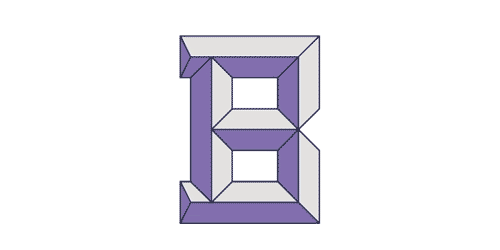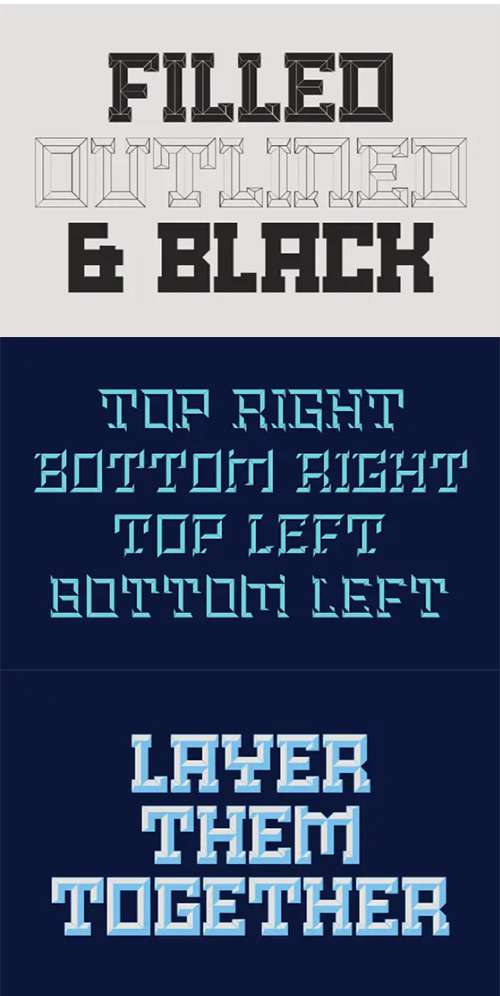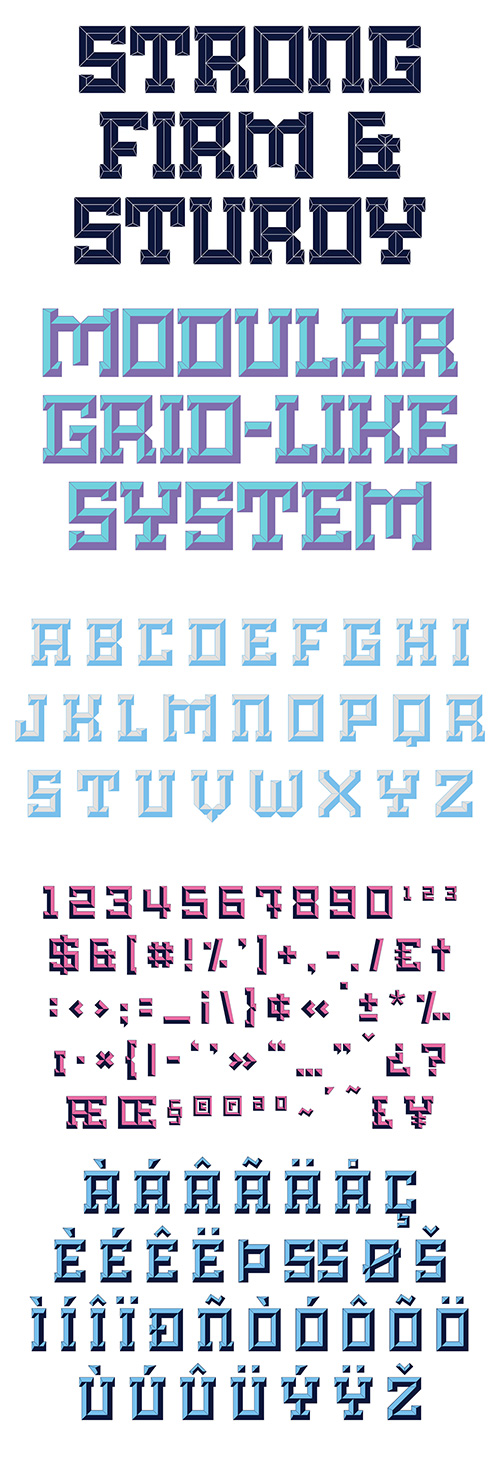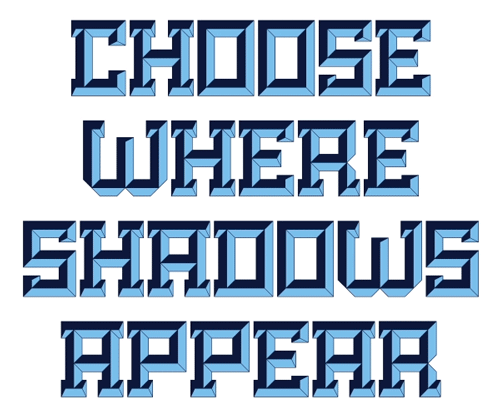
Brute - A New Kind of Beveled Display Typeset
- Brute is a new kind of beveled display face based upon a modular grid-like system. Its precisely sharp edges convey a solid yet aggressive feel that add personality to any project. Unlike many beveled typefaces, Brute puts the lighting direction decisions in the designer's hands. To accomplish this, it comes with four different lighting styles that can be layered on top of the primary styles to create different solutions.